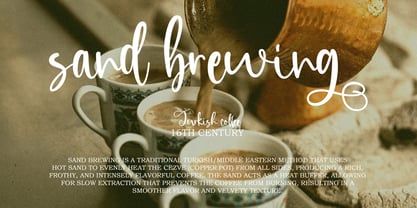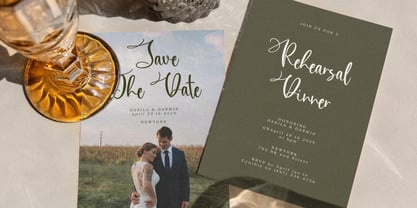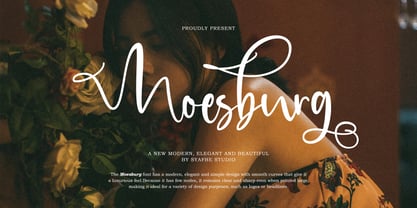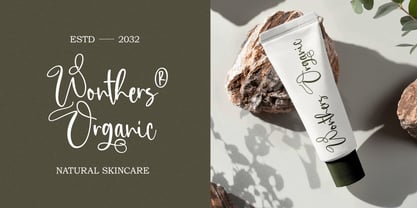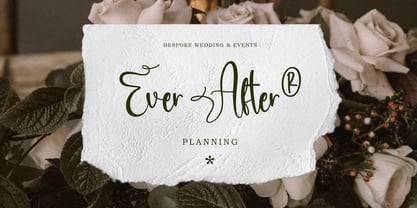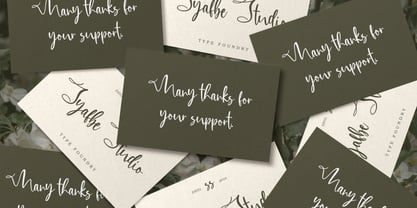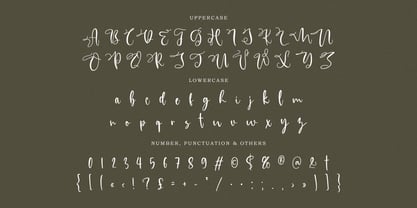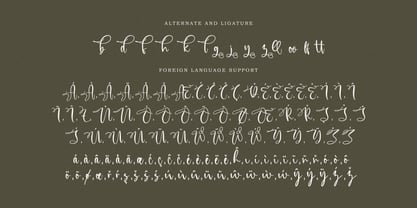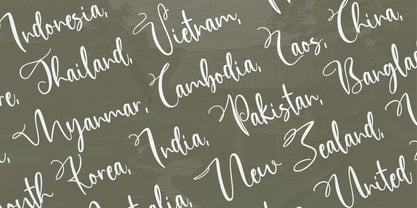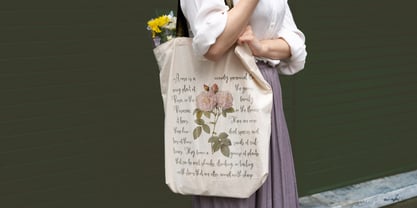
Moesburg
by Syafbe
The Moesburg Font Family was designed by Syafwan Mus and published by Syafbe. Moesburg contains 1 styles. More about this family
Moesburg script/handwritten signature style font with flowing, fine strokes and elegant curves, giving a warm, luxurious, and exclusive impression; its function is very suitable for strengthening the appearance of logos/branding, product packaging and labels, invitations or event needs, as well as social media content titles because it can make the design look more premium and personal, especially when used for short texts such as brand names or taglines and then combined with a simple sans-serif font so that the information remains easy to read.